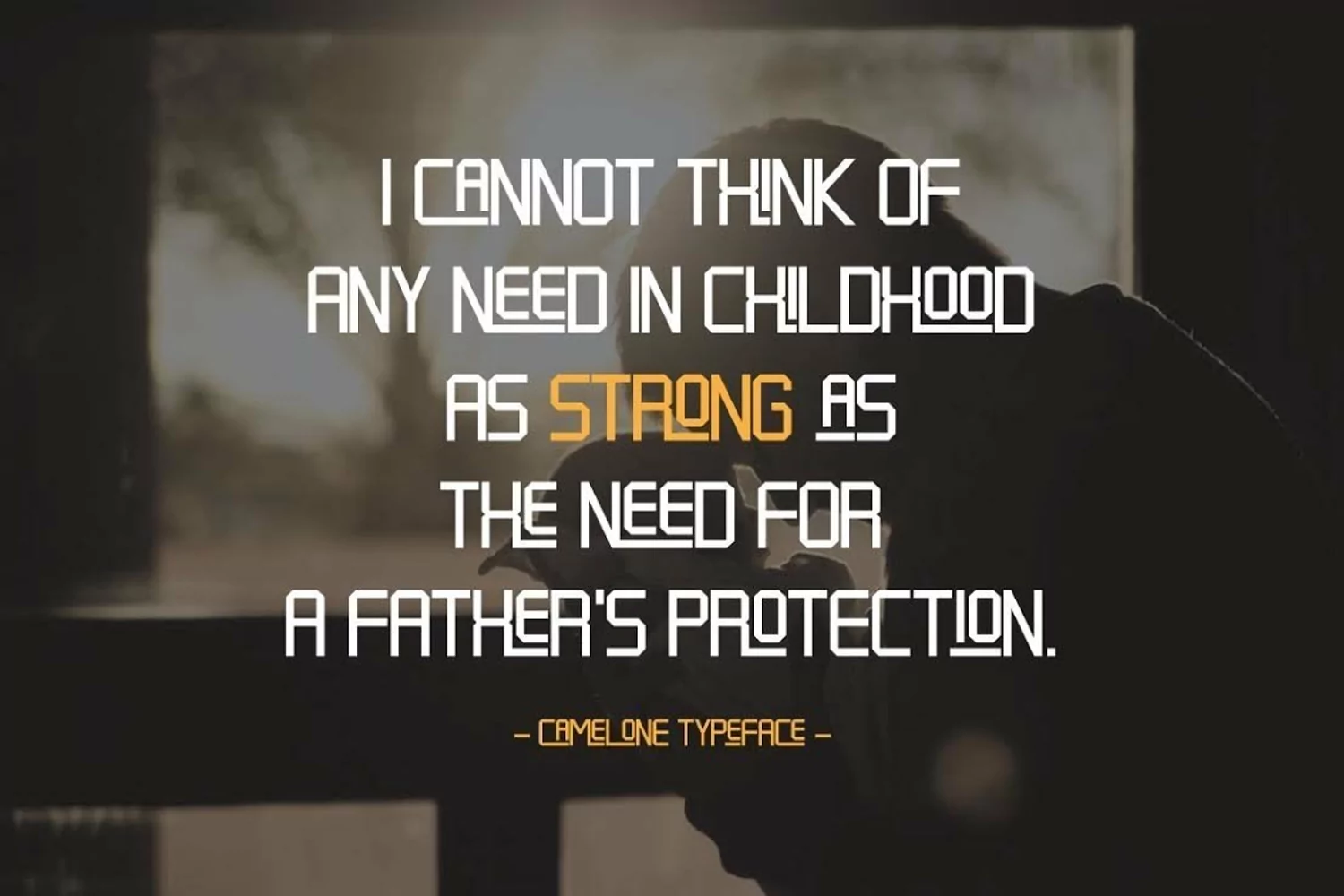
Introducing Camelone Can be used for various purposes namely headings, logos, wedding invitations, t-shirts, letterheads, signages, labels, news, posters, badges etc. What's inside? 4 font style in otf format including how to use tutorial Uppercase Lowercase Numeral & Punctuations Use a program that supports OpenType features such as Adobe Illustrator CS, Adobe Indesign & CorelDraw X6-X7 to access the full features of this typeface. Feel free to contact me for additional supports
Camelone-Regular
CameloneOblique-Regular
CameloneUrban-Regular
CameloneOutline-Regular